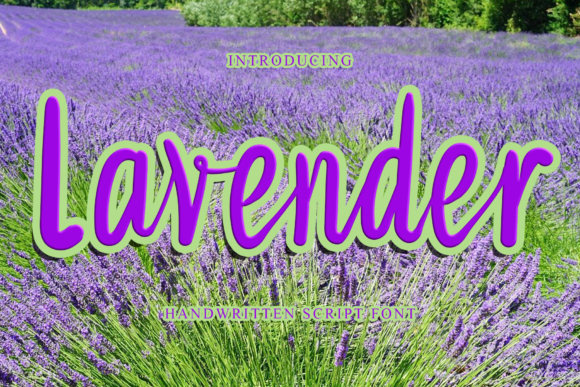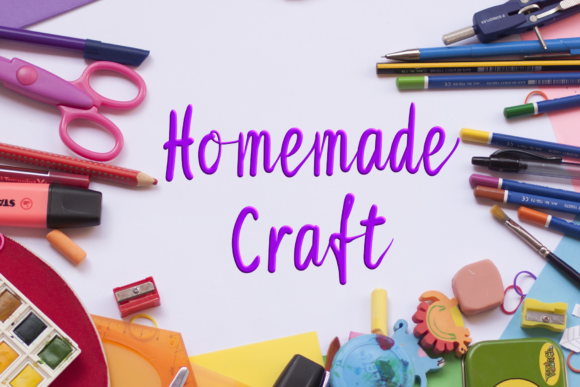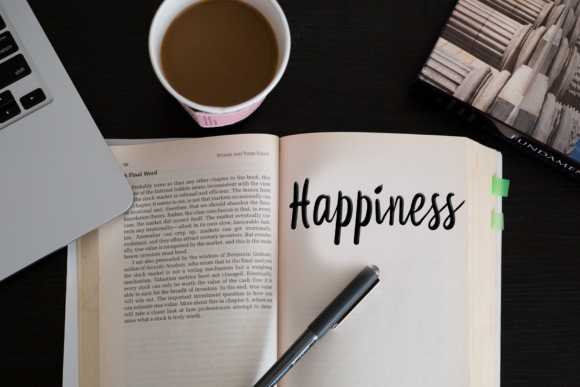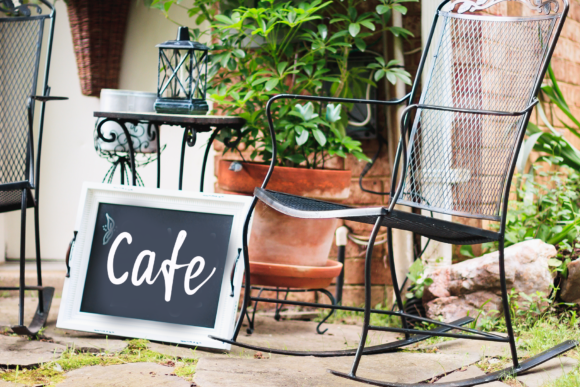
About Lavender Font
Lavender is a charming and elegant cursive handwritten font that brings a touch of sweetness and sophistication to your designs. With its flowing and graceful letterforms, Lavender adds a sense of beauty and refinement to any project.
The cursive nature of the font gives it a sense of fluidity and elegance, as if each letter is delicately handcrafted. This flowing quality makes Lavender a perfect choice for adding a touch of grace and sophistication to your creative ideas. Whether you’re designing logos, crafting invitations, or creating inspiring quotes, Lavender has the potential to make your designs truly shine.
The expert design of Lavender ensures that each letter is meticulously crafted and well-balanced. The loops and curves are carefully formed, creating a harmonious and visually pleasing aesthetic. This attention to detail and craftsmanship enhances the overall quality of the font and contributes to its ability to elevate your creative ideas.
Lavender’s versatility allows it to adapt to various design applications. Its sweet and cursive style makes it suitable for a wide range of projects, including branding, packaging, wedding stationery, and more. With its ability to evoke a sense of romance and elegance, Lavender can add a touch of sophistication to your designs.
In addition to its aesthetic appeal, Lavender remains legible and easy to read. Each letter is designed with clarity and distinction, ensuring that your message is effectively communicated to your audience.
In summary, Lavender is a sweet and cursive handwritten font that has the potential to elevate your creative ideas to new heights. Its graceful and elegant letterforms add a sense of beauty and sophistication to your designs, while the expert design ensures balance and harmony. Embrace the charm of Lavender and let it bring a touch of elegance to your creative projects.